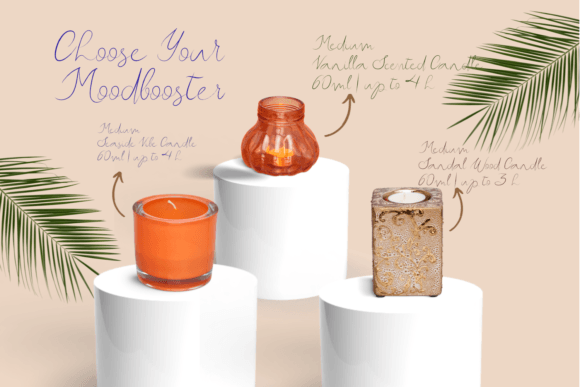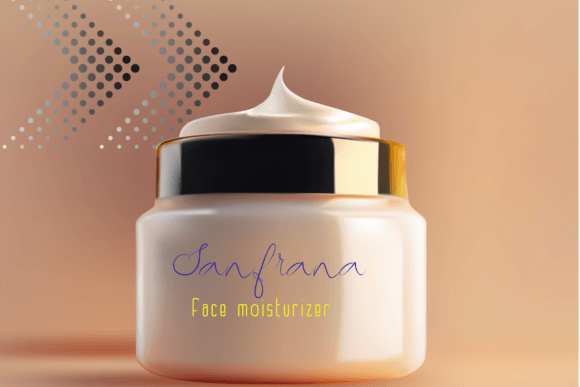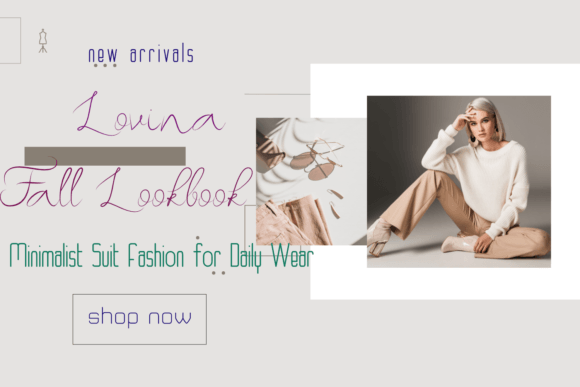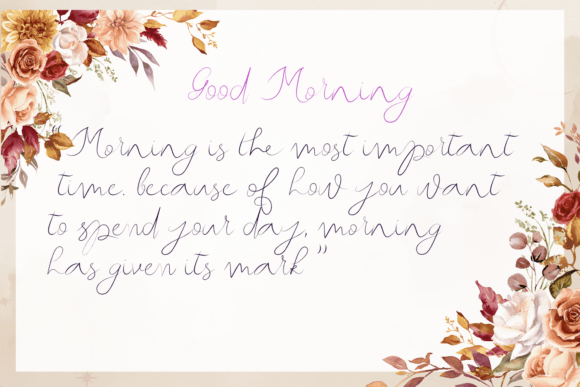
Introduction to Rosalie Font Font
Have you ever been working on a creative project, pouring your heart and soul into it, only to realize that the perfect font is missing? This is where Rosalie Font Font comes in – a game-changing, high-quality font that will elevate your design to the next level. As a designer, you understand the importance of finding that one special font that brings your vision to life.
Rosalie Font Font is more than just a font – it’s a design resource that will help you create stunning, unique, and professional-looking designs. With its classy calligraphic influences and contemporary feel, this font is perfect for any creative project. Whether you’re designing a logo, a poster, or a brochure, Rosalie Font Font will add a touch of elegance and sophistication to your work.
- Includes a wide range of glyphs and characters, making it suitable for both Latin and Cyrillic languages.
- Designed with a modern and elegant aesthetic, perfect for adding a touch of sophistication to your design.
Honest Review: Rosalie Font Font
I recently stumbled upon the Rosalie Font Font while searching for a high-quality design resource for a creative project. As a designer, I’m always on the lookout for unique and versatile fonts that can elevate my work. The Rosalie Font Font did not disappoint.
- What works well: ✨ The Rosalie Font Font features a beautiful, elegant script that’s perfect for titles, headings, and other design elements. The font is also highly customizable, allowing me to adjust the size, color, and spacing to suit my needs.
However, I did encounter some limitations with the Rosalie Font Font. ⚠️ The font is not as extensive as some other script fonts on the market, with limited ligatures and swashes. Additionally, the font may not be suitable for body text, as it can be difficult to read in small sizes.
Overall, I’m impressed with the Rosalie Font Font and would definitely recommend it for designers working on creative projects. While it may have some limitations, its unique style and high-quality design make it a valuable addition to any design resource library.